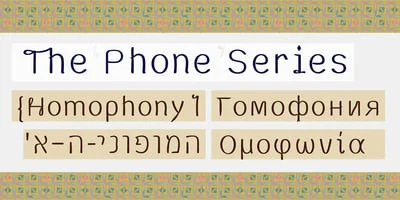
Phone Pro Hebrew Font
Phone Pro Hebrew Font is perfect for Hebrew mobile applications, Israeli tech company branding, religious text displays, Hebrew educational software, Middle Eastern telecommunications, Jewish community centers, Hebrew language learning platforms, and multilingual communication systems. This specialized typeface excels in applications where Hebrew typography and digital clarity are essential.
What makes Phone Pro Hebrew Font so exciting is its exceptional ability to deliver crystal-clear Hebrew text rendering optimized for modern digital devices while preserving the authentic beauty of Hebrew calligraphy traditions. The font features precisely crafted Hebrew characters with mobile-optimized spacing and telecommunications-inspired clarity that ensures perfect readability across all screen sizes and resolutions. Its culturally-sensitive design philosophy combines traditional Hebrew letter forms with contemporary digital functionality, making it perfect for technology companies serving Hebrew-speaking markets and cultural organizations seeking authentic Hebrew communication.
Phone Pro Hebrew Font belongs to the Hebrew sans-serif font family, specifically designed for digital interface and telecommunications applications. This typeface family emphasizes optimal screen readability through Hebrew-specific character optimization and mobile device compatibility, ensuring consistent presentation across various Hebrew language and Middle Eastern-focused design projects.
Enhance Hebrew digital communication with Phone Pro Hebrew Font, a typeface that embodies the precision of modern telecommunications and authentic Hebrew typography. This advanced font delivers exceptional clarity for Hebrew applications, featuring comprehensive Hebrew character sets with diacritical marks and religious symbols perfectly suited for Jewish and Israeli digital communications. Its meticulously optimized letterforms maintain excellent legibility across various sizes, from small mobile interface text to large Hebrew signage displays. The font's distinctive Hebrew personality makes it indispensable for designers creating Middle Eastern brands, Hebrew educational materials, and multilingual content where conveying cultural authenticity and digital precision is crucial for Hebrew-speaking audiences and Jewish community engagement.